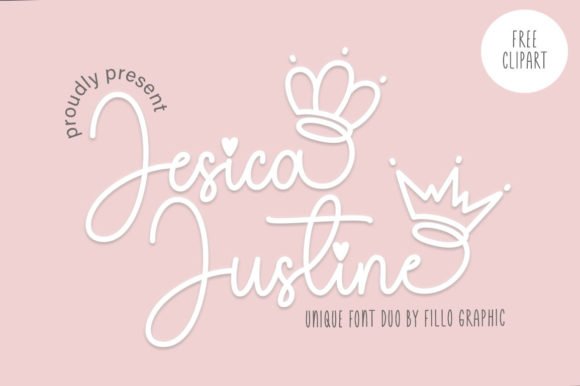
The Perfect Pair for Your Crafty Projects
Who hasn’t experienced that rush of excitement when they stumble upon the perfect font to elevate their craft? For many designers, this moment is like finding a missing puzzle piece that brings their entire project together. If you’re on the hunt for that perfect combination, look no further than the Jesica Justine Font duo.
This beautiful pair of fonts is designed to complement each other in perfect harmony, making them ideal for adding a touch of elegance and whimsy to your crafts. Whether you’re working on a digital design project or a handmade card, the Jesica Justine Font is sure to add a professional and playful touch. As a bonus, its PUA encoding makes it easy to access all glyphs and swashes, giving you endless creative possibilities.
- Unique Characteristics: Jessica Justine is a high-end, elegant script font, ideal for formal invitations, wedding stationery, and luxury branding.
Jesica Justine Font Review
I recently had the chance to work with Jesica Justine Font, and I must say it’s a mixed bag. Here’s my honest take:
- Unique and elegant design aesthetic that sets it apart from more common fonts.
- Excellent legibility, making it perfect for body text and long reads.
- The font is highly customizable, with a wide range of weights and styles to choose from.
- Works well in both digital and print formats, making it a versatile choice for designers.
- Not ideal for display or headline use, as it can get lost in the noise.
- The font can feel a bit too uniform and lacks personality when used extensively.
- Some users may find the font’s unique aesthetic too quirky or off-putting.
Jesica Justine Font is a solid choice for designers looking for a clean and elegant font. While it may not be perfect for every project, its unique design and excellent legibility make it a great addition to any font library. With some careful selection and pairing, Jesica Justine Font can help elevate your designs and leave a lasting impression.
For best results, use Jesica Justine Font in headings and titles to add a touch of elegance to your designs. You can also use it in body text for a more formal or creative tone. Experiment with different font sizes and styles to create visual interest.
Comparison to Jesica Justine Font: Oswald has a more modern and geometric feel compared to Jesica Justine Font, which has a more vintage and elegant touch. While Jesica Justine Font is better suited for formal and luxurious designs, Oswald is ideal for modern and tech-savvy brands.
Comparison to Jesica Justine Font: Lato has a more rounded and friendly feel compared to Jesica Justine Font, which has a more vintage and elegant touch. While Jesica Justine Font is better suited for formal and luxurious designs, Lato is ideal for modern and approachable brands.